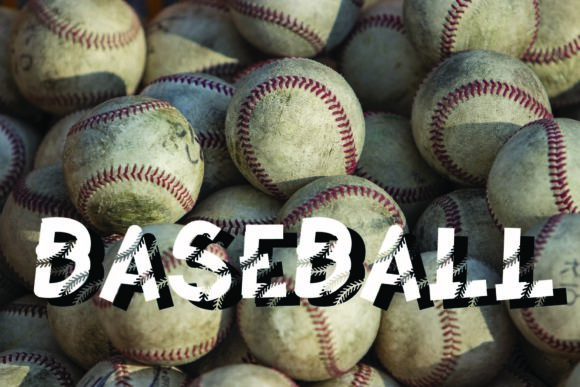
Indulge in the allure of Baseball Softball Lace Font, an extraordinary display font that will ignite your sporting spirit! Crafted with love by KtwoP, this font embodies the essence of athleticism and passion. Whether you're a seasoned baseball enthusiast or a softball fanatic, Baseball Softball Lace Font is your ticket to captivating designs that will send your projects soaring.
Imagine your sports-themed posters, flyers, and social media graphics exploding with energy and dynamism when adorned with Baseball Softball Lace Font's unique characters. This font isn't merely a collection of letters; it's a symphony of angles and curves that dance harmoniously, evoking the thrill of the game and the determination of the players.
With Baseball Softball Lace Font, you'll effortlessly create designs that resonate with sports enthusiasts. Its bold strokes and playful style will instantly grab attention, drawing them into the heart of your message. This font is more than just a visual tool; it's a powerful force that will elevate your designs to the next level, ensuring they stand out from the crowd and leave a lasting impression.
Whether you're designing merchandise for your favorite team or creating eye-catching promotional materials for your sports event, Baseball Softball Lace Font has got you covered. Its versatility knows no bounds, making it perfect for a wide range of projects. Unleash your creativity and let this font ignite your passion for all things sports!